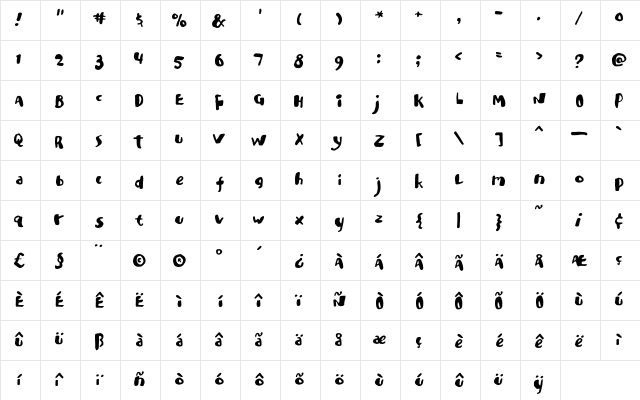
Ladybug Regular
Design Context for Ladybug Typeface
Ladybug is a composed and adaptable typeface that performs quietly and consistently across a wide range of design contexts.